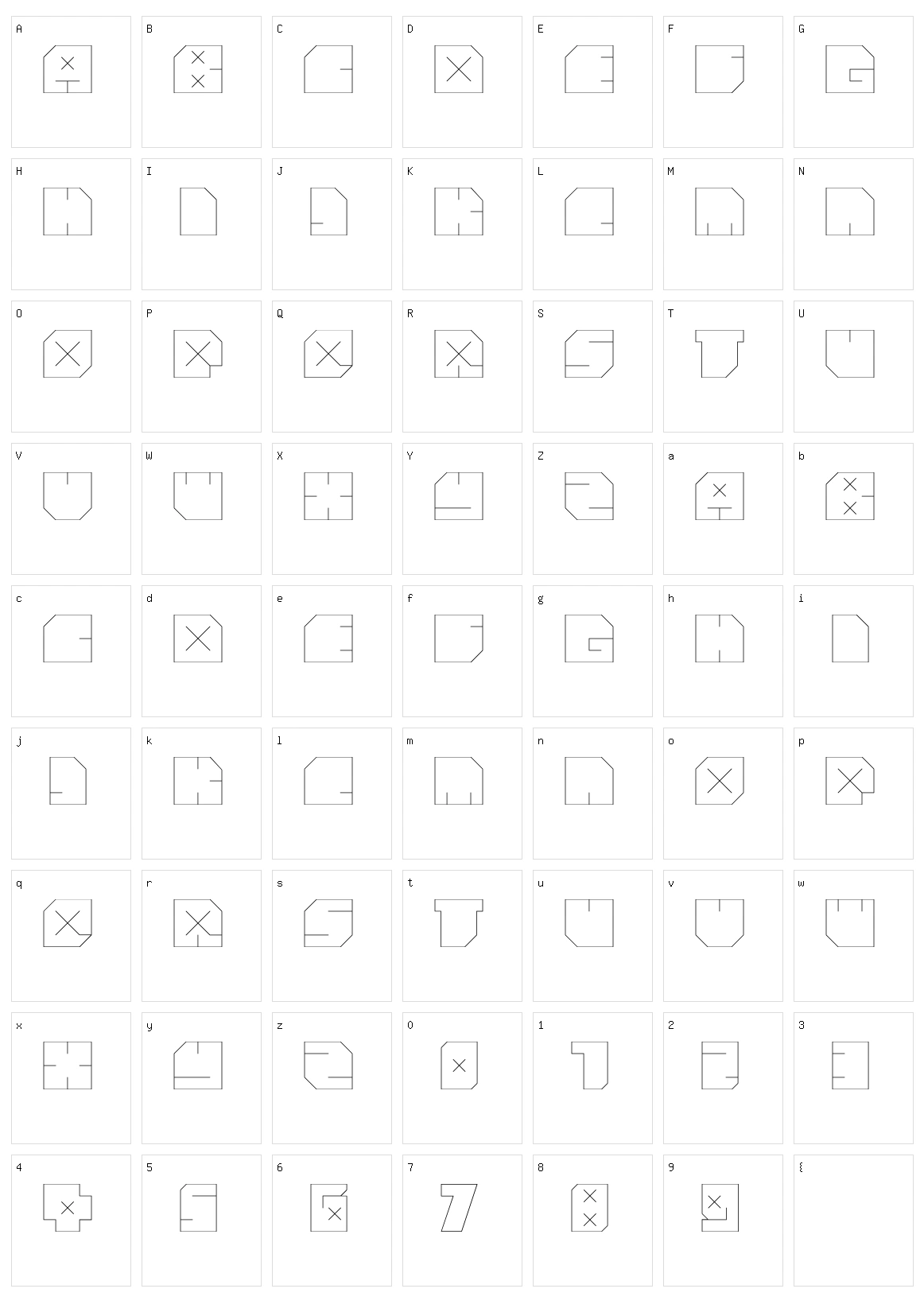
The free font Andrefist is carefully designed by dmfstudio, showcasing a thoughtful balance of creativity and usability and falls under the Square font style. When you download the ZIP file, it contains only 24.06 KB of font files, making it lightweight and quick to download. Please review the license details below to understand permitted usage and distribution rights. If license information is not available, we recommend using this font for personal projects only or contacting the author directly for commercial usage permissions.